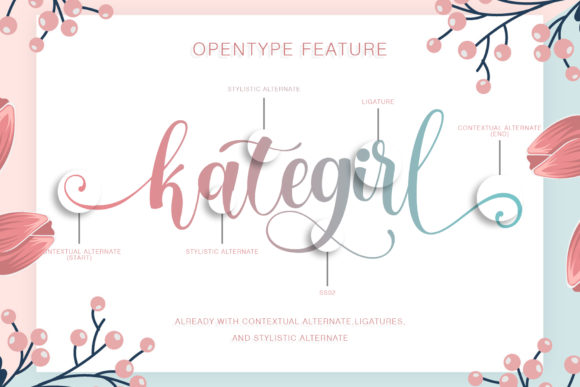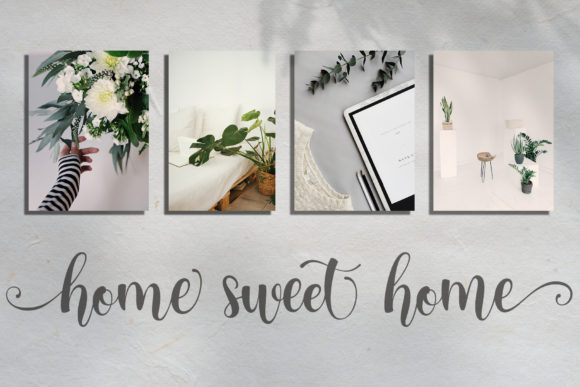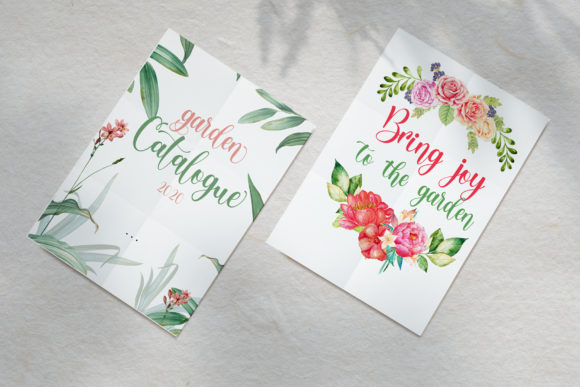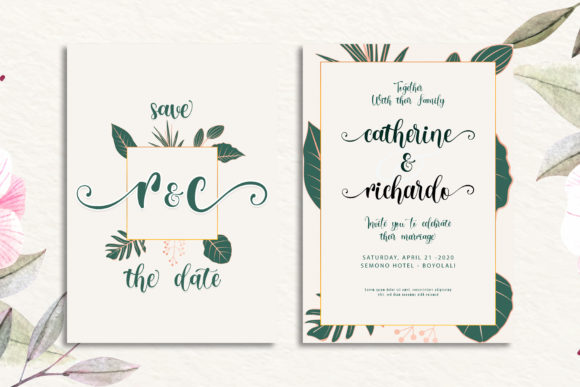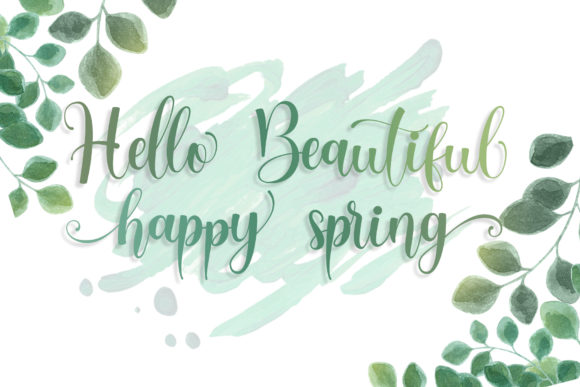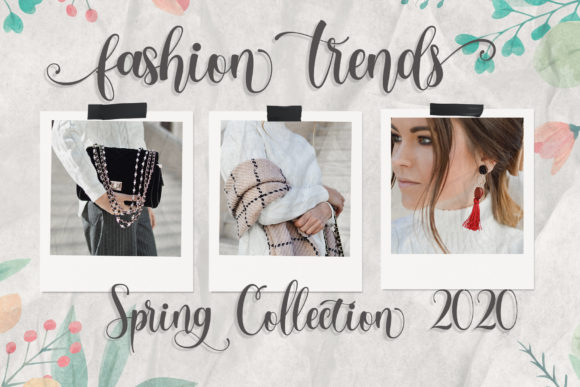
Discover the Charm of Birthella Font: A Modern and Cute Handwritten Delight
In the world of typography, a good font can make all the difference in the success of a design project. For those seeking a modern and cute handwritten font, look no further than Birthella. This charming font is perfect for creating a wide range of beautiful and eye-catching materials, from wedding invitations and stationery art to social media posts and greeting cards.
The Authentic Feel of Birthella
Birthella Font boasts an authentic feel that is sure to capture the hearts of designers and crafters alike. Its modern and cute handwritten style is perfect for those seeking a unique and personalized touch in their designs. Whether you’re looking to create a romantic wedding invitation or a fun social media post, Birthella’s charming and whimsical feel is sure to impress.
One of the standout features of Birthella Font is its PUA (Private Use Area) encoding. This means that users can access all of the font’s glyphs and swashes with ease, making it simple to create beautiful and intricate designs. With PUA encoding, you can unlock the full potential of Birthella and take your designs to the next level.
Special Features for Endless Creativity
Birthella Font also features a wealth of special features, including alternate glyphs and ligatures. These features allow designers to add an extra layer of creativity and sophistication to their work, making it perfect for a wide range of applications. Whether you’re looking to create a stunning wedding invitation or a fun and playful social media post, Birthella’s special features have got you covered.
Birthella Font is perfect for designers and crafters who are looking for a modern and cute handwritten font that is both versatile and easy to use. With its authentic feel and wealth of special features, Birthella is sure to become a go-to font for anyone looking to create beautiful and eye-catching designs. Whether you’re a professional designer or a hobbyist crafter, Birthella is a great addition to any font collection.
Ideas for Using Birthella Font
So, what can you create with Birthella Font? The possibilities are endless! Here are a few ideas to get you started:
- Wedding invitations and stationery: Birthella’s charming and romantic feel makes it perfect for wedding designs.
- Social media posts: Add a touch of personality to your social media posts with Birthella’s fun and playful style.
- Greeting cards: Create beautiful and heartfelt greeting cards with Birthella’s authentic feel.
- Stationery art: Use Birthella to create stunning stationery art that is sure to impress.
In conclusion, Birthella Font is a modern and cute handwritten font that is perfect for designers and crafters looking for a unique and versatile font. With its authentic feel, PUA encoding, and wealth of special features, Birthella is sure to become a favorite font for anyone looking to create beautiful and eye-catching designs. So why wait? Discover the charm of Birthella Font today and take your designs to the next level!
Key Features of Birthella Font
- Modern and cute handwritten font
- Authentic feel
- Alternate glyphs and ligatures
- Perfect for wedding invitations, stationery art, social media posts, and greeting cards
Whether you’re a professional designer or a hobbyist crafter, Birthella Font is a great addition to any font collection. So why not give it a try and see what beautiful designs you can create?